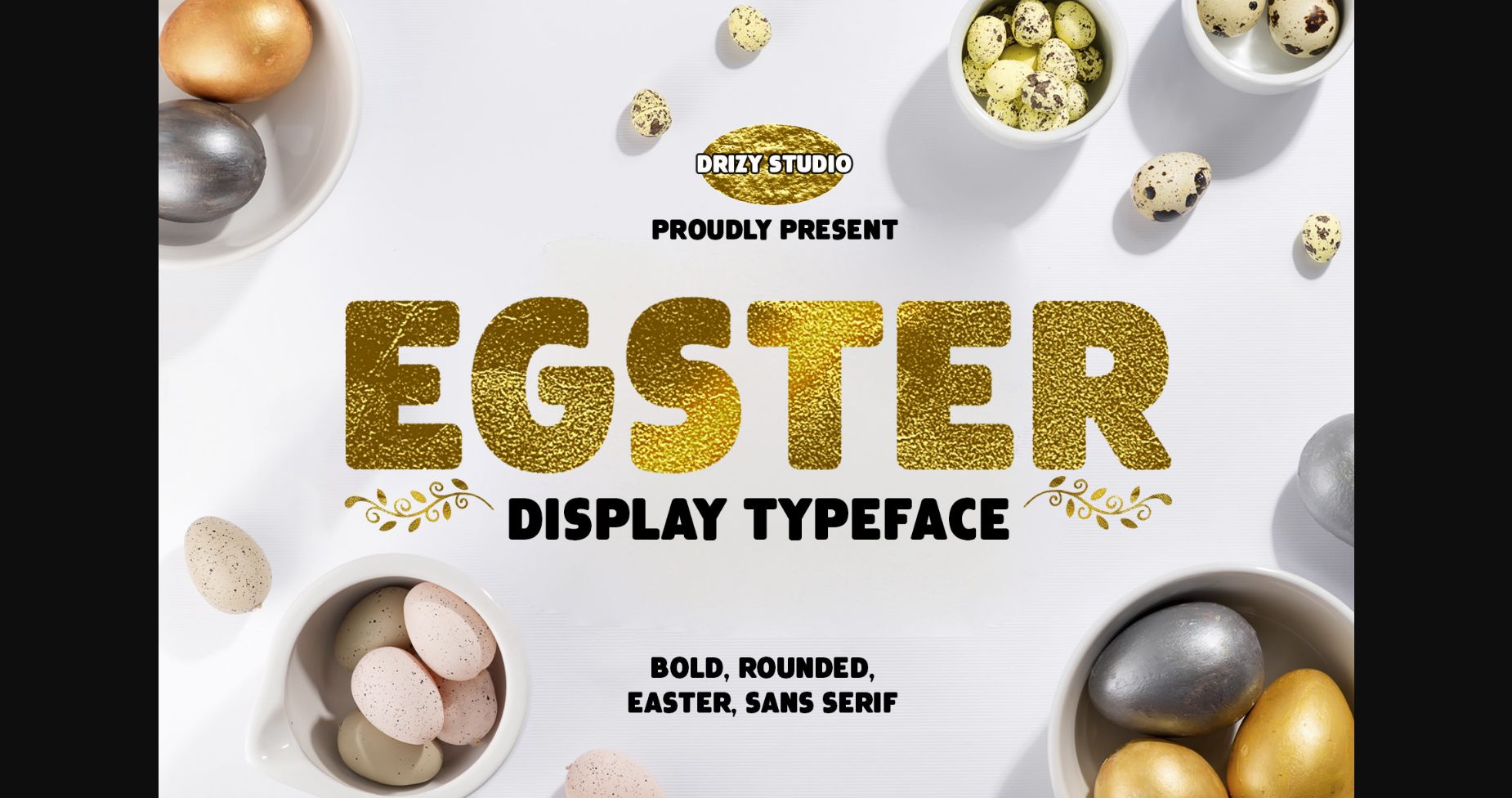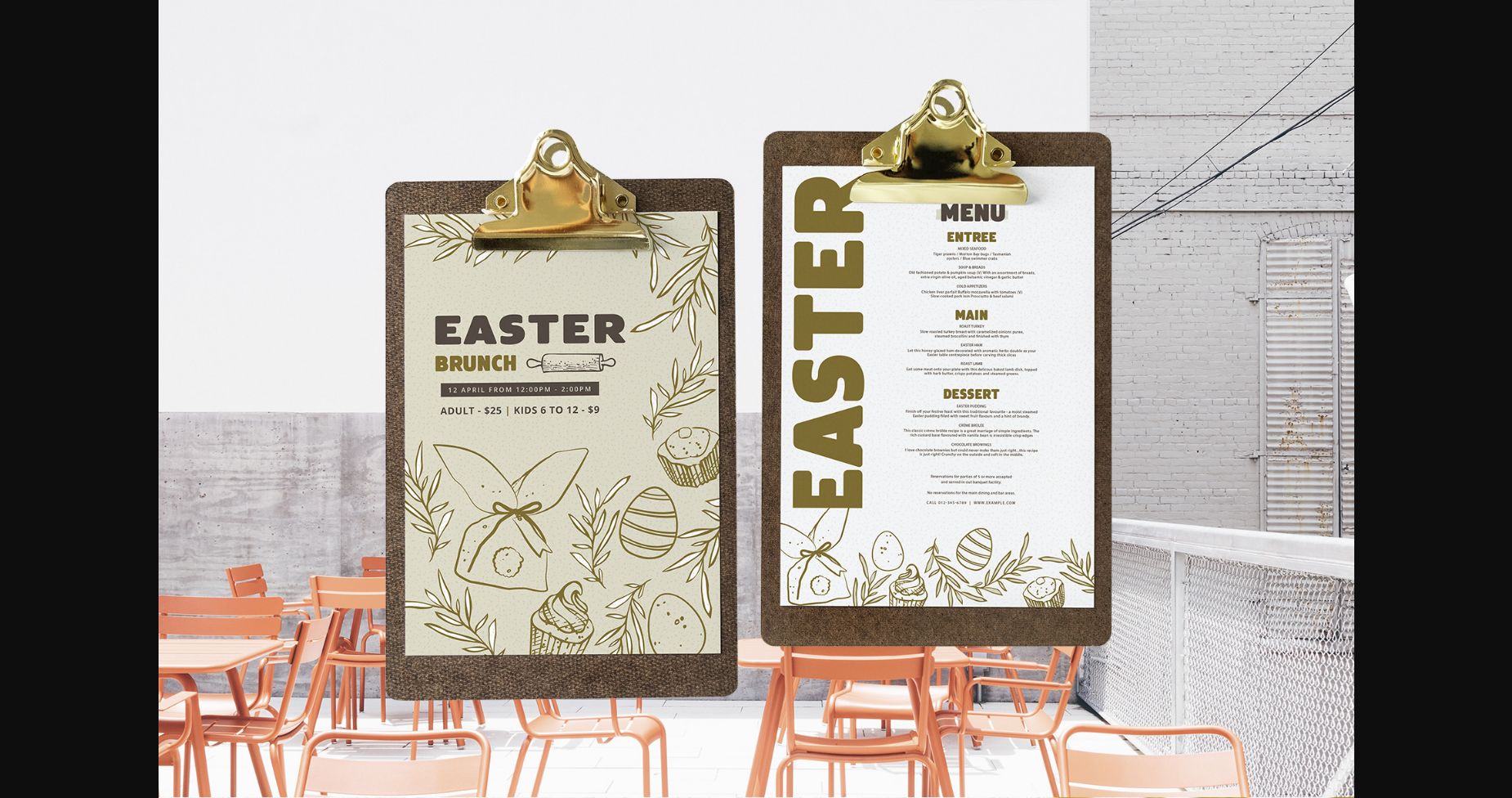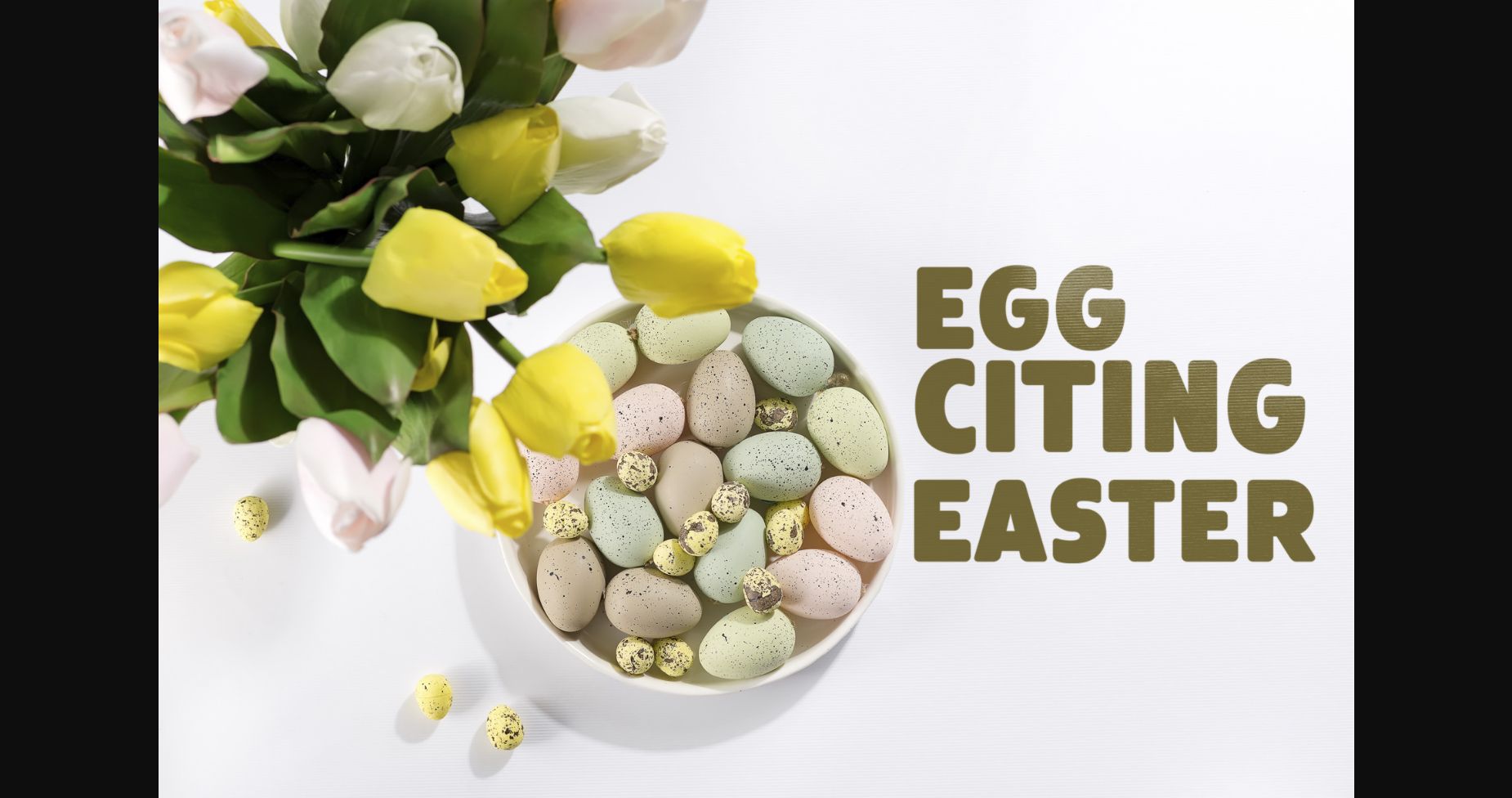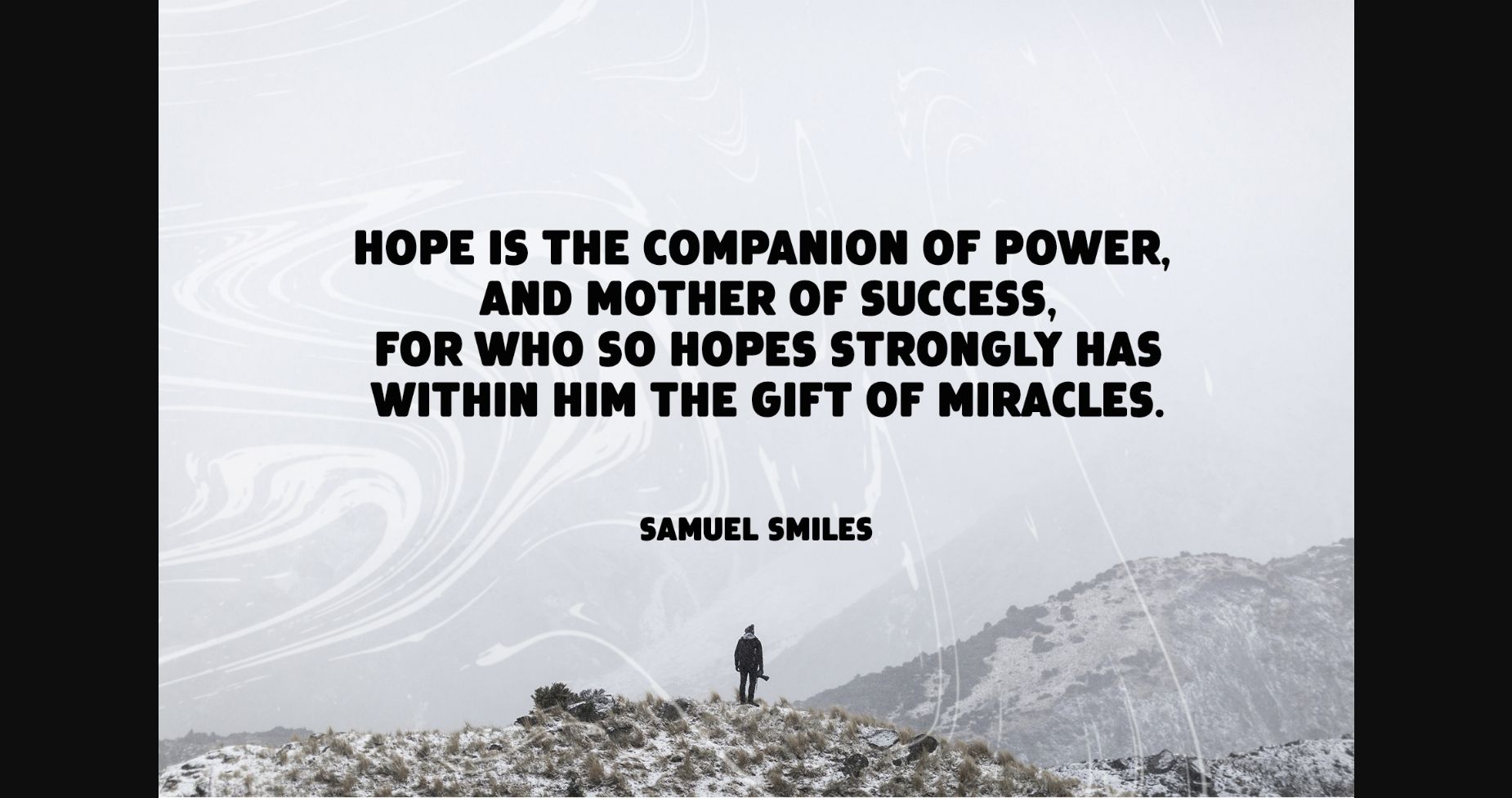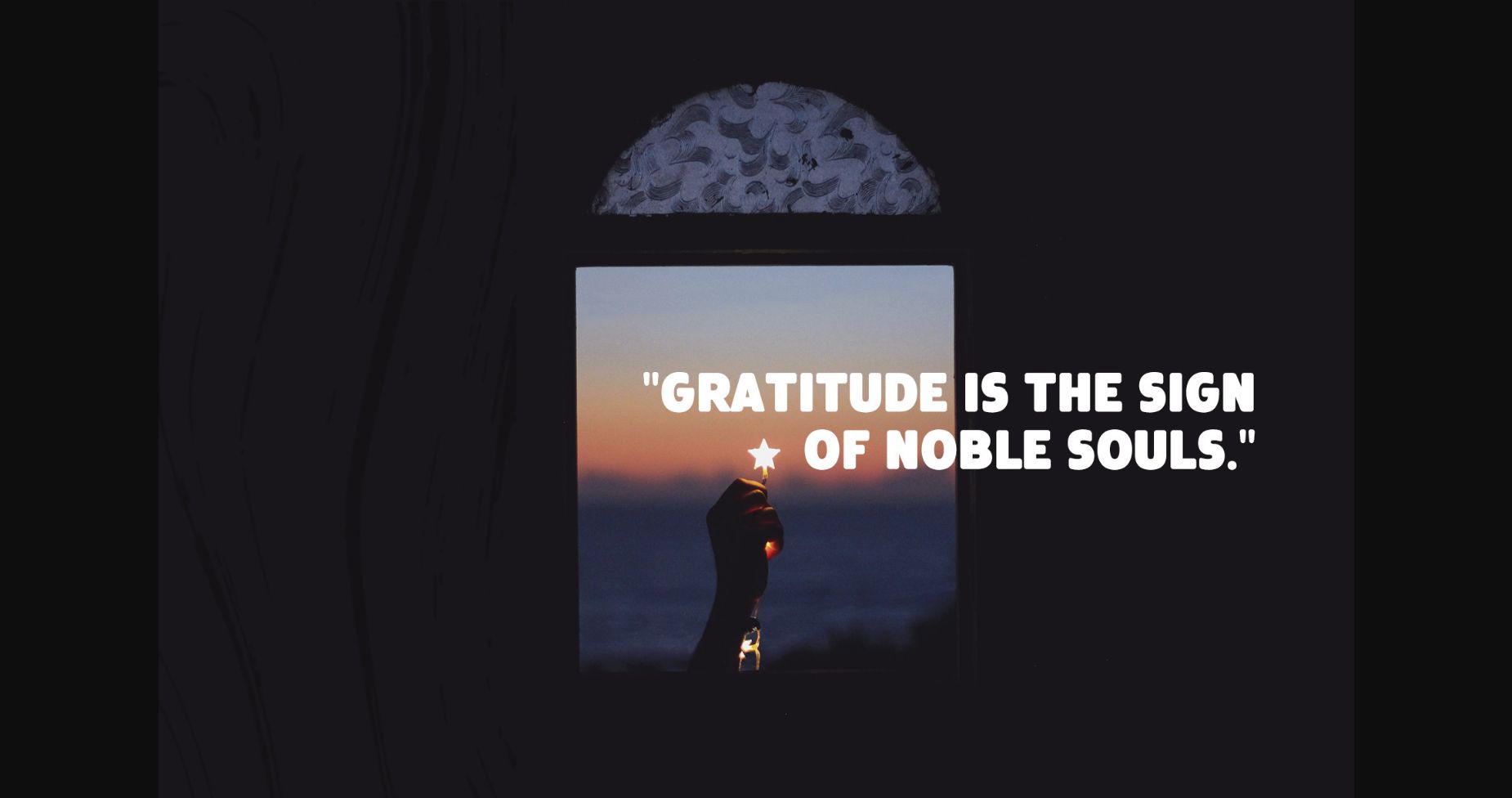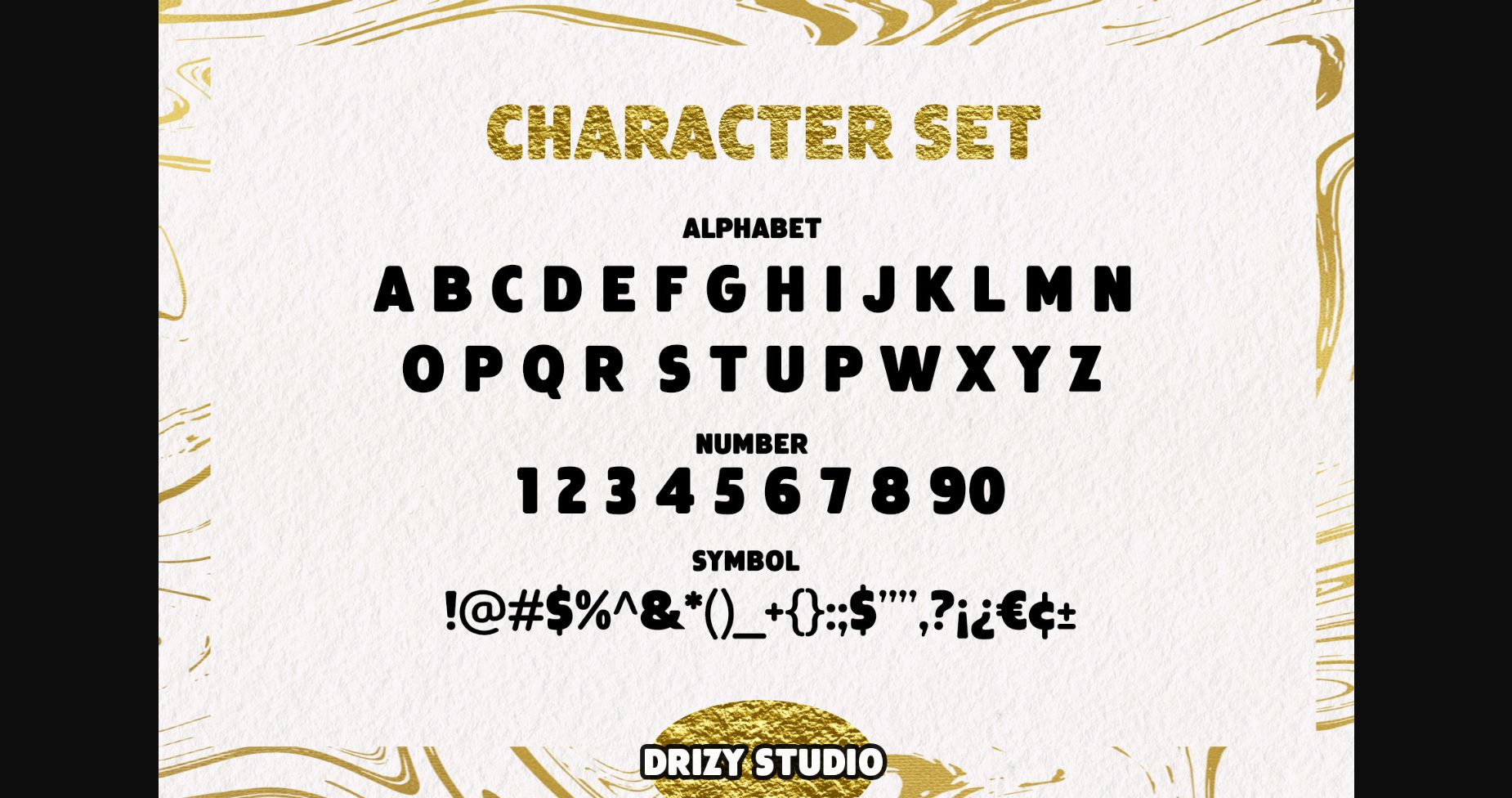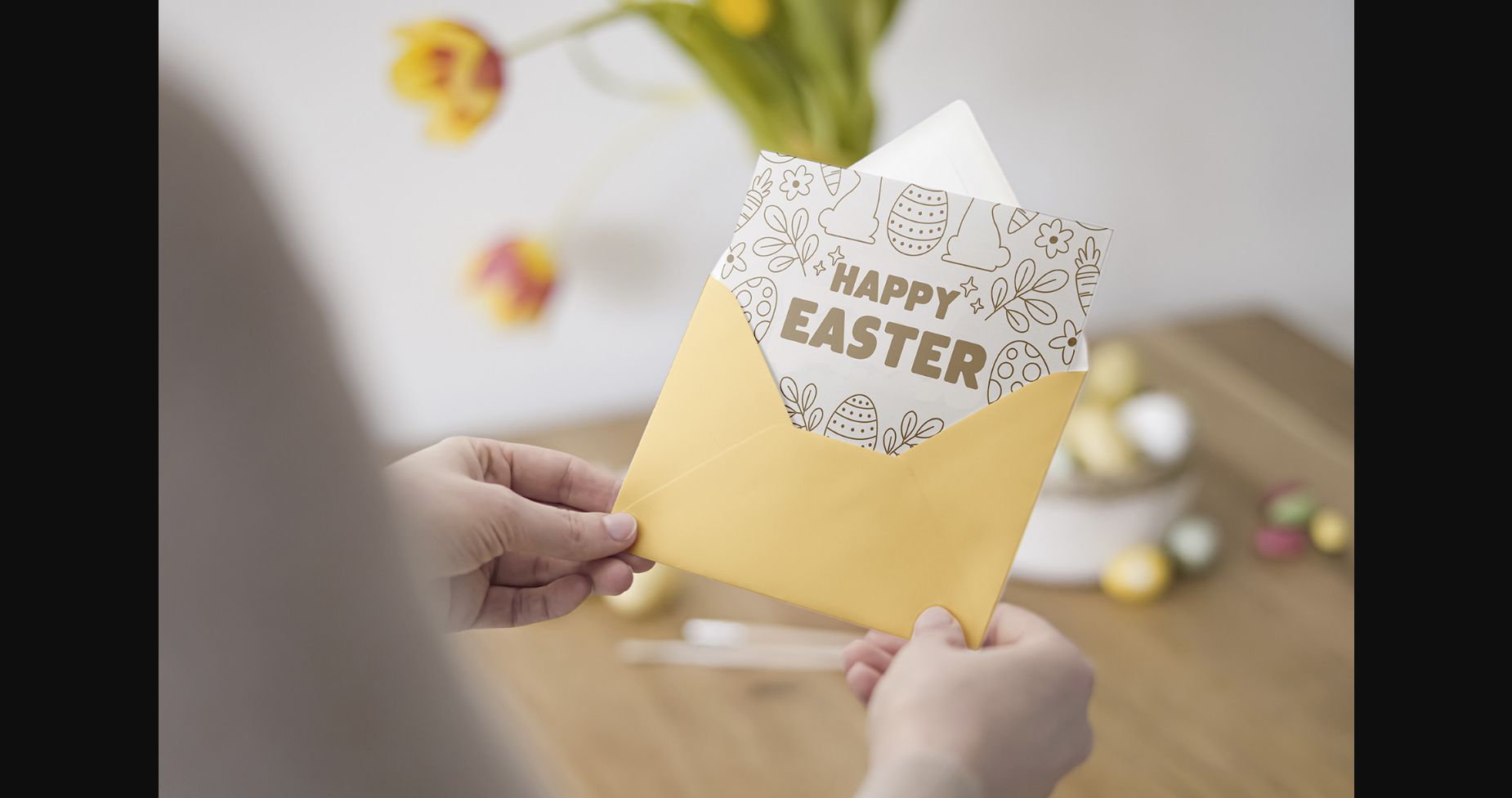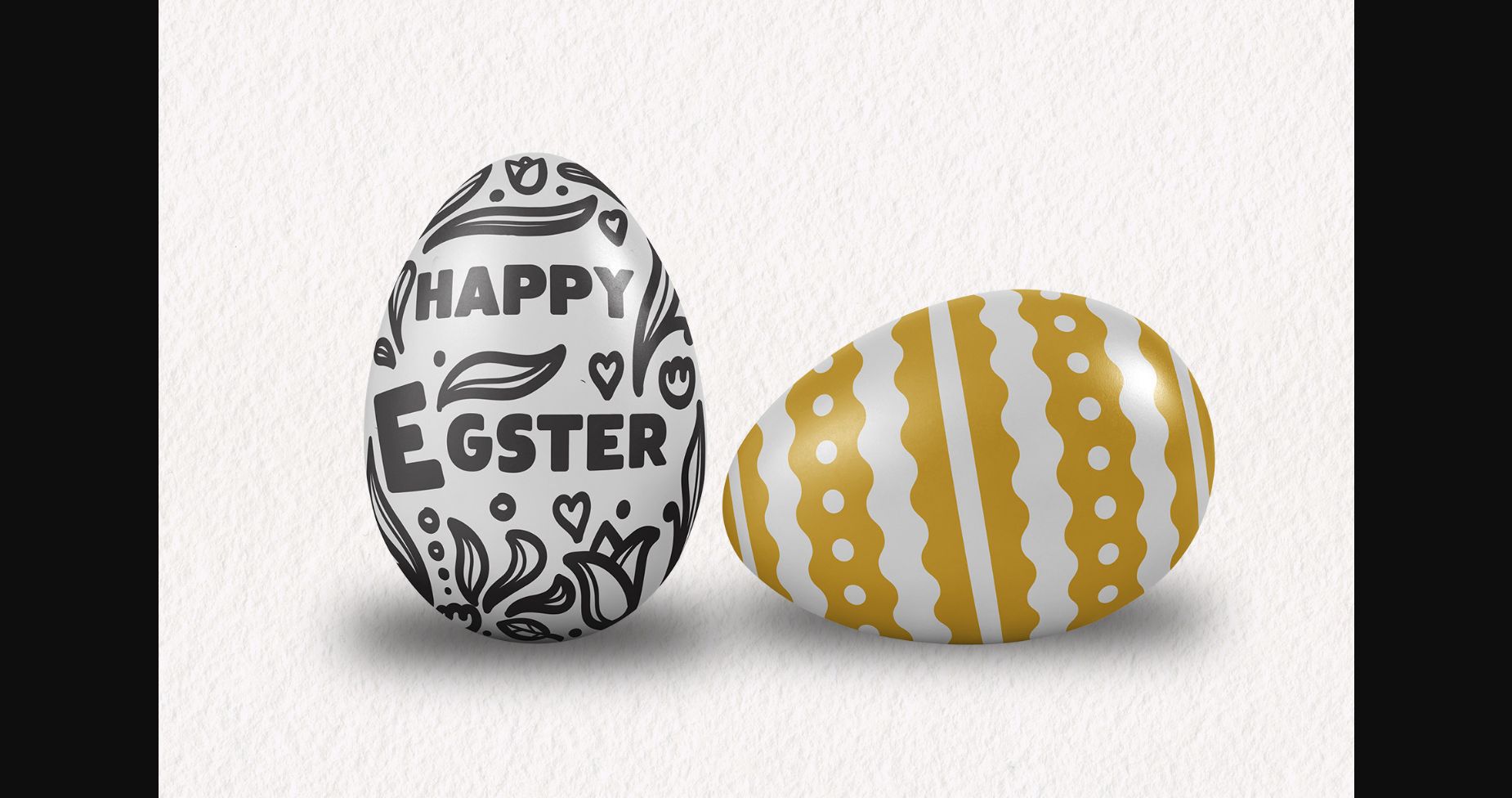
Egster Font
About Egster Font
Egster is a Bold Rounded Easter Font, it is ideal for your Easter related design ideas. Simple but with a strong visual effect, this font will instantly make your creation more appealing.